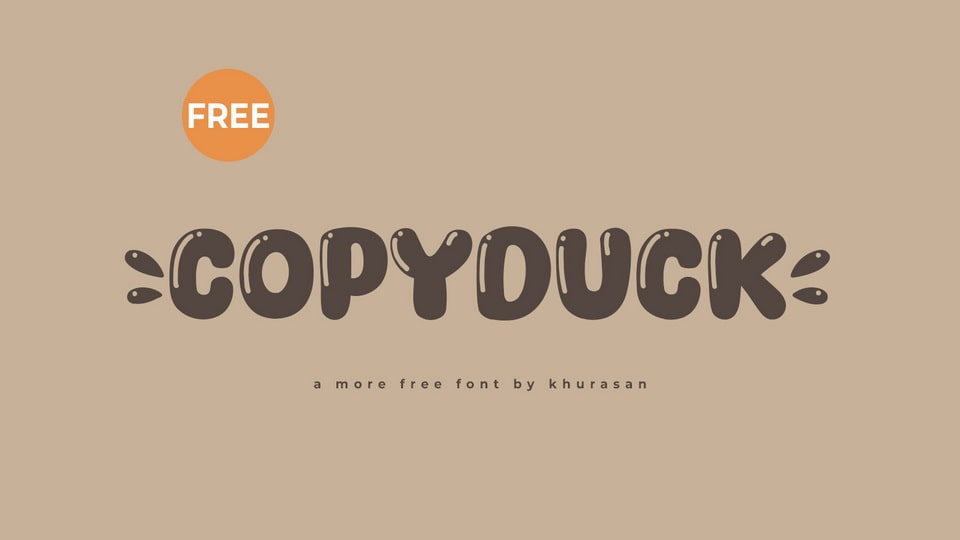
Download Copyduck font, a charming handcrafted typeface with a rounded, glossy appearance that adds a touch of whimsical elegance to your designs. Copyduck font combines the warmth of handcrafted lettering with a subtle sheen, creating a delightful blend of playful charm and sophistication.